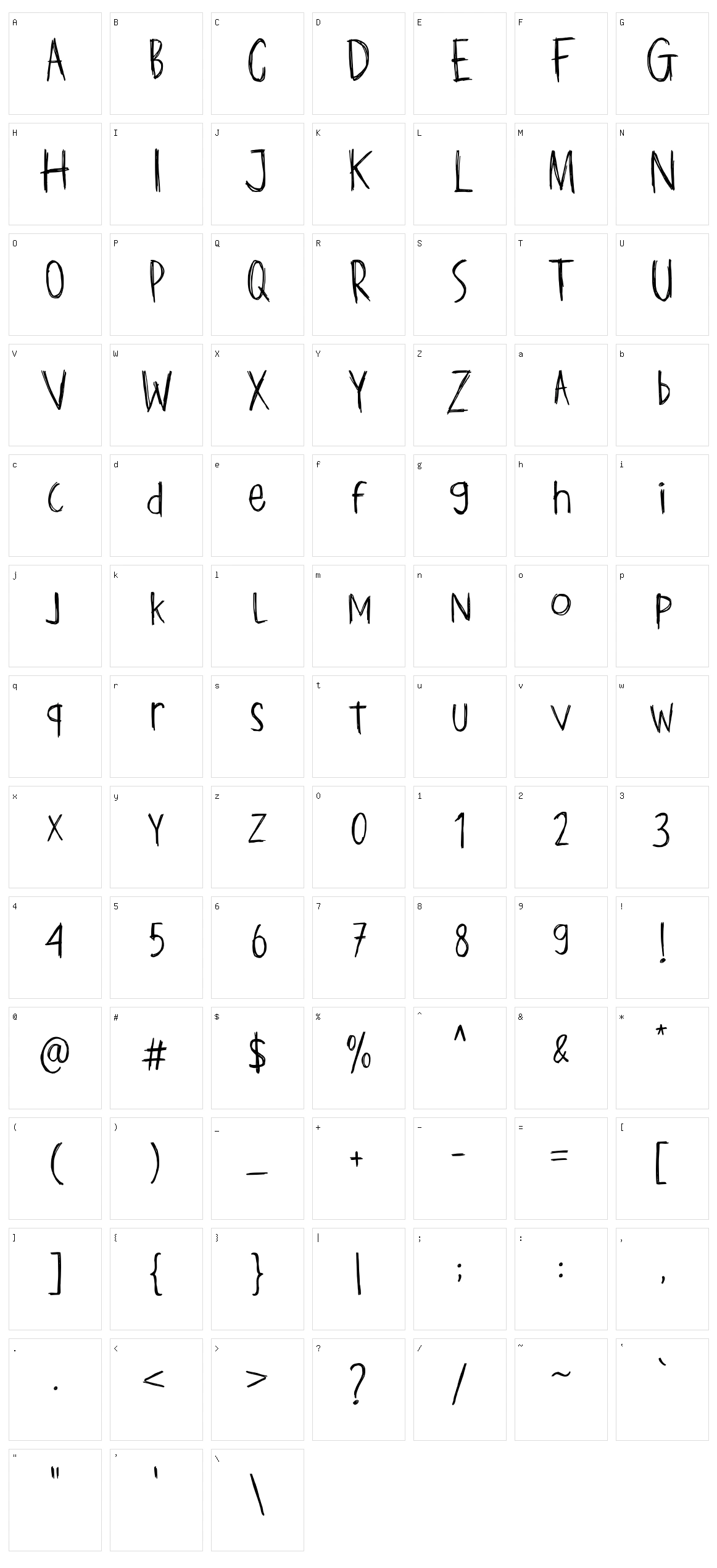
The free font Deathridge is carefully designed by Allouse Studio, showcasing a thoughtful balance of creativity and usability and falls under the Horror font style. When you download the ZIP file, it contains only 45.67 KB of font files, making it lightweight and quick to download. Please review the license details below to understand permitted usage and distribution rights. If license information is not available, we recommend using this font for personal projects only or contacting the author directly for commercial usage permissions.